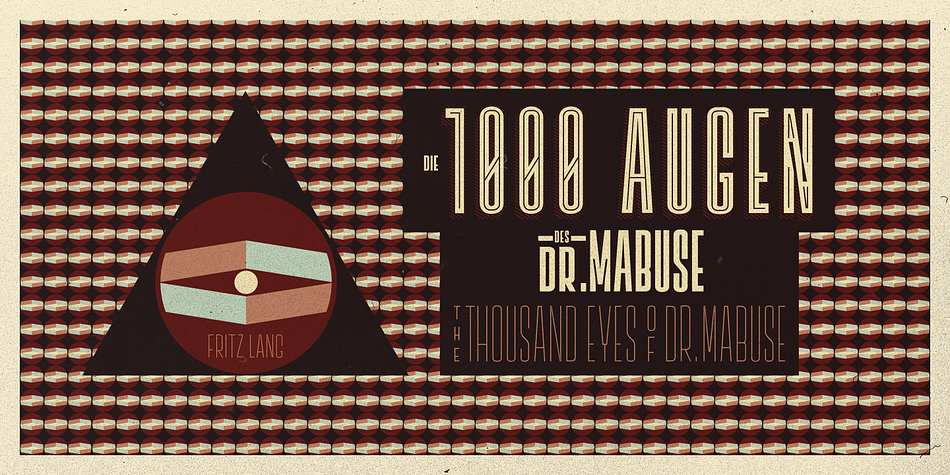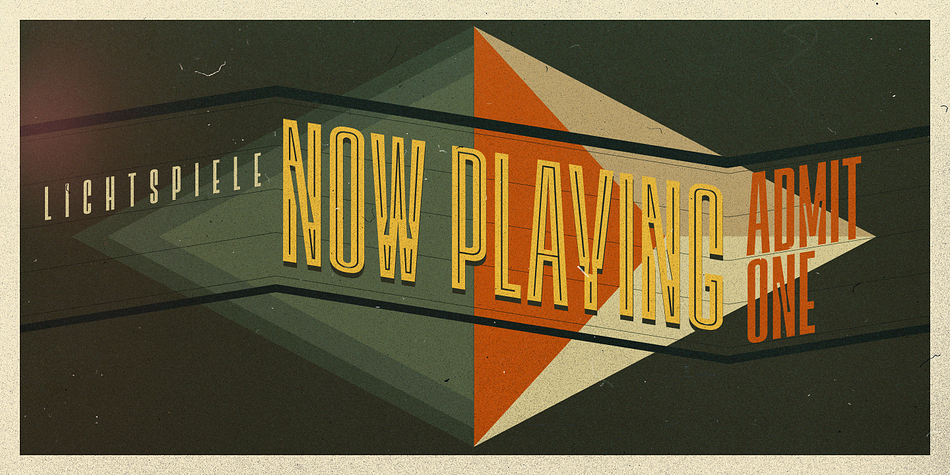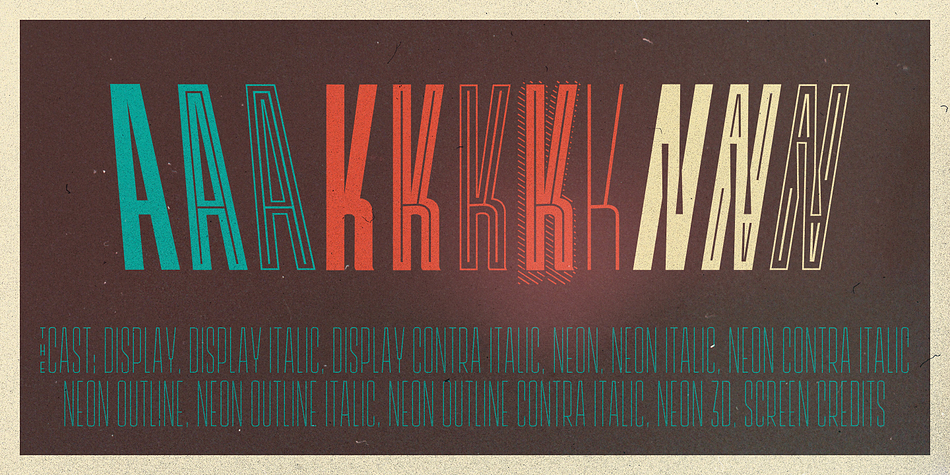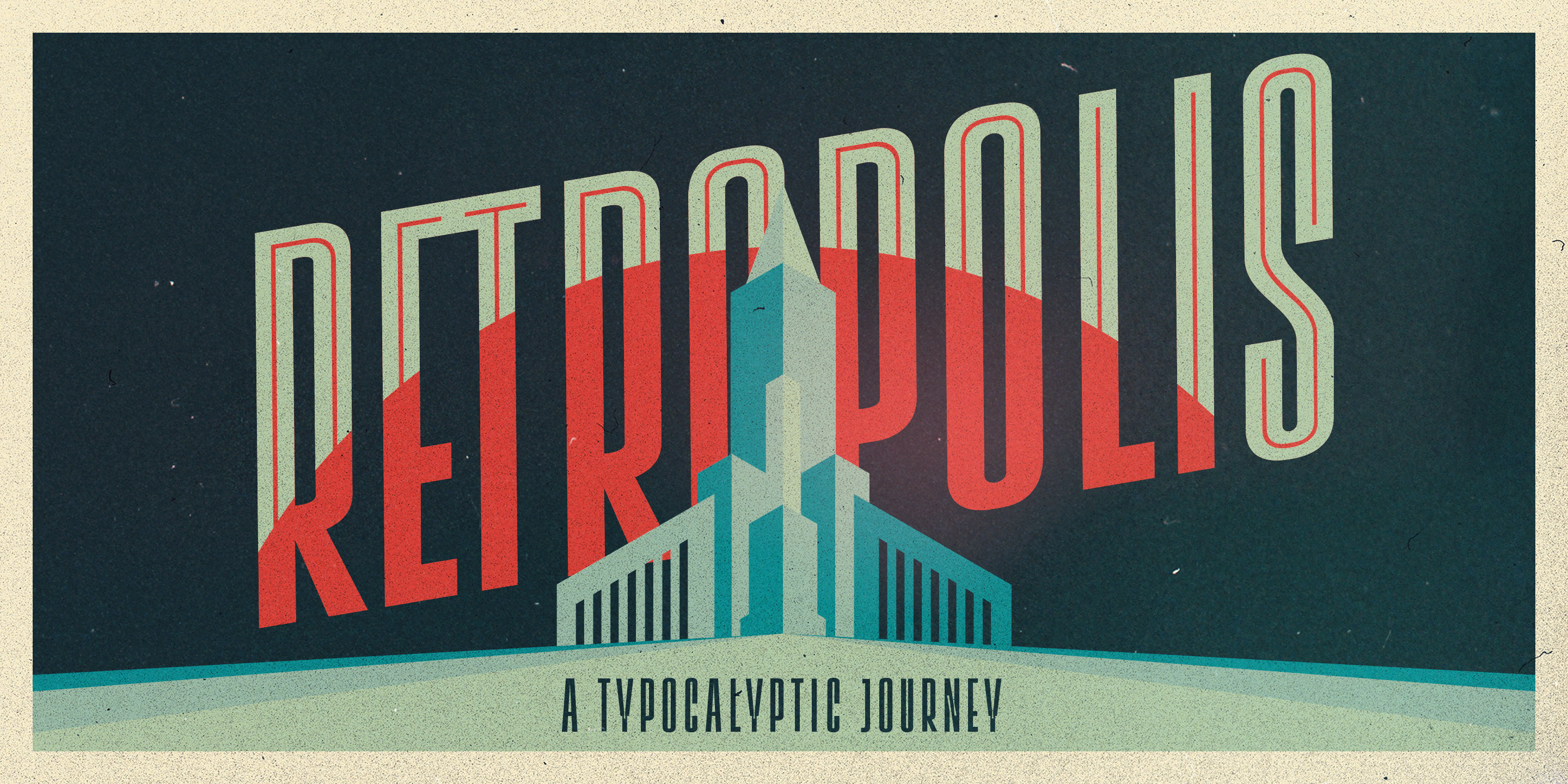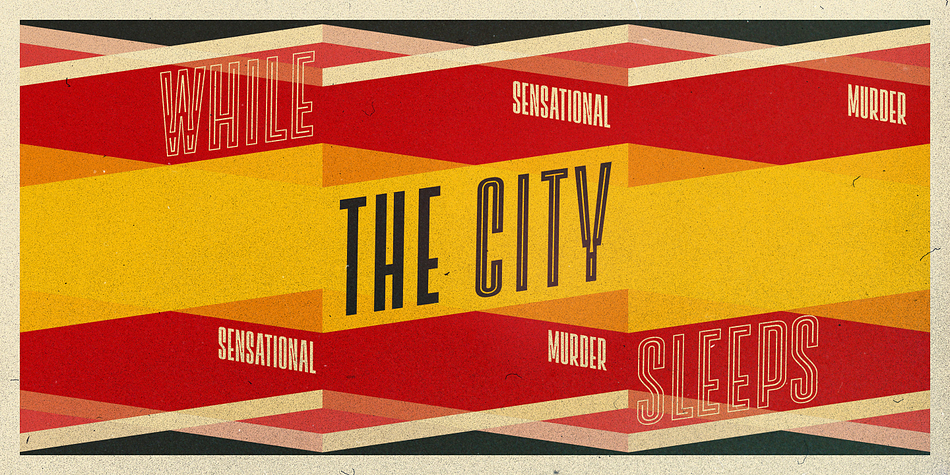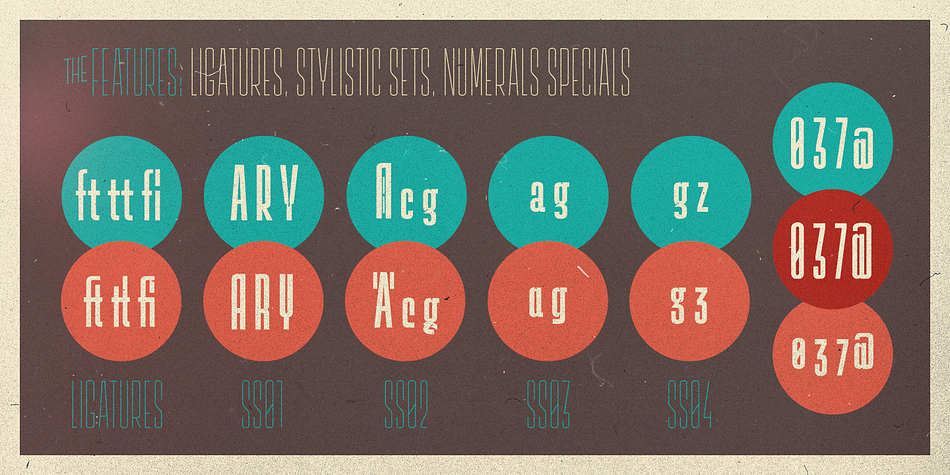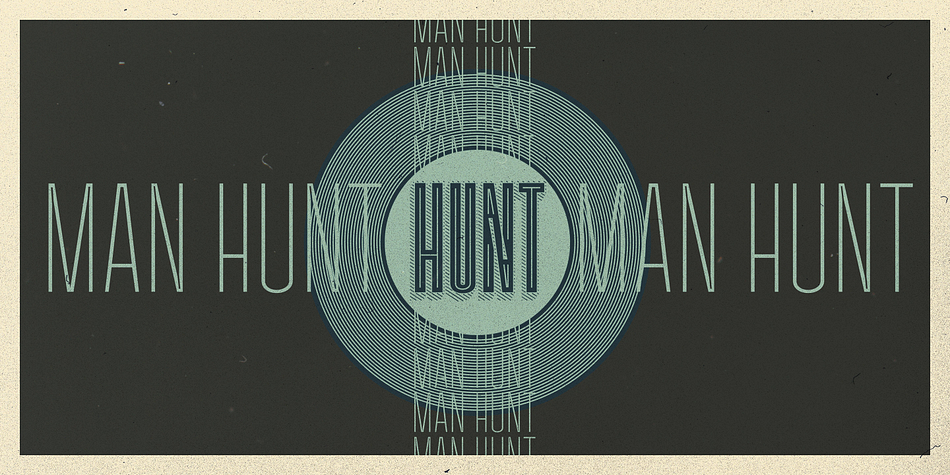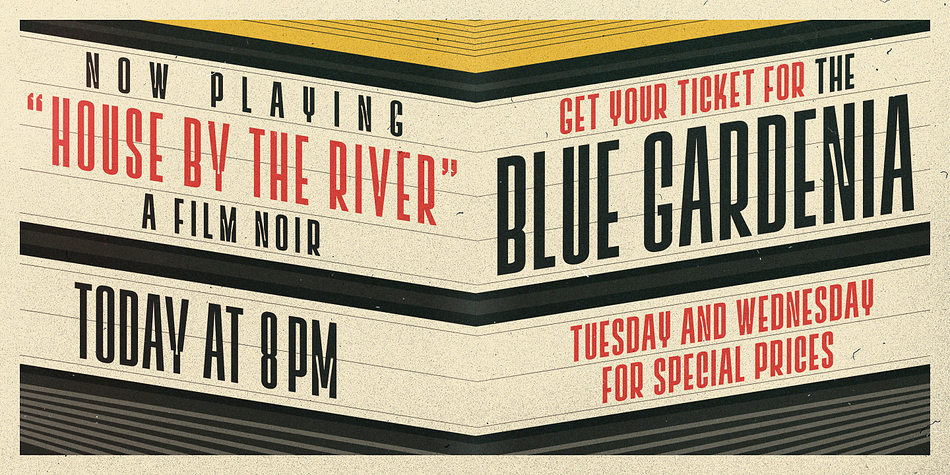
Designed by Stefan Huebsch, Lichtspiele is a retro and display sans font family. This typeface has eleven styles and was published by Typocalypse.
Cinemas from the early 20th Century are called “Lichtspiele” in Germany. “Lichtspiele” transports you back to a time where neon lights and marquee letters decorated cinema facades.
Of the 5 styles, three have two versions of italics - one for each perspective. Display is your basic style. Neon is inspired by the old neon letters found outside cinemas.
Add Neon Outline to Display or Neon to add another layer to your artwork. Neon 3D is a extruded version of Neon. Screen Credits is based on the liner notes of movie posters.
Get more out of life, go out to a movie.